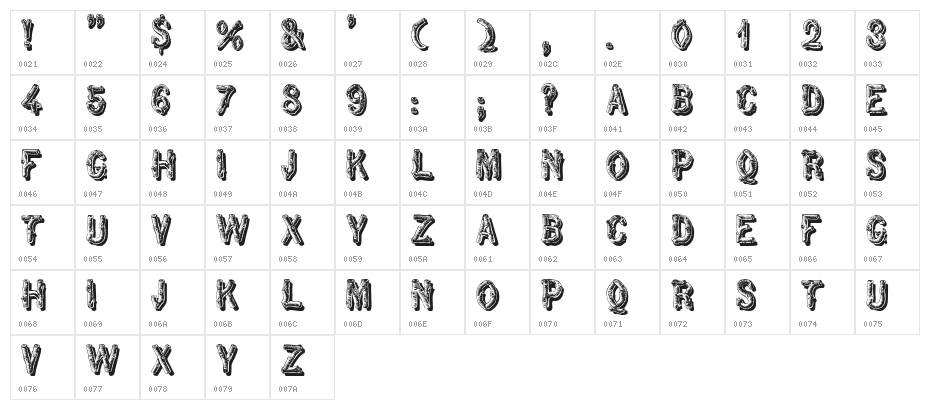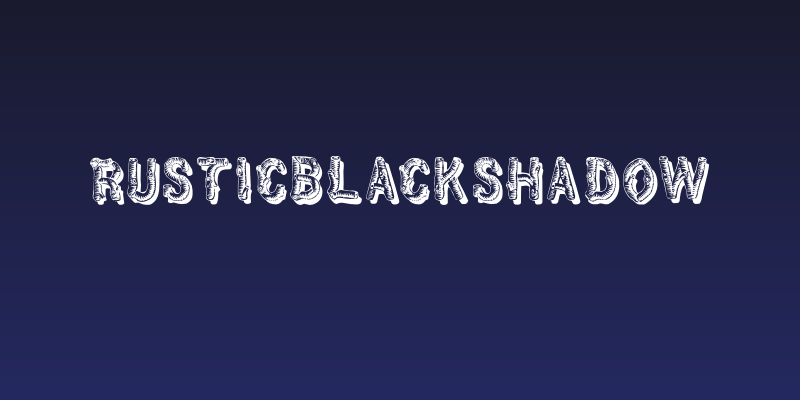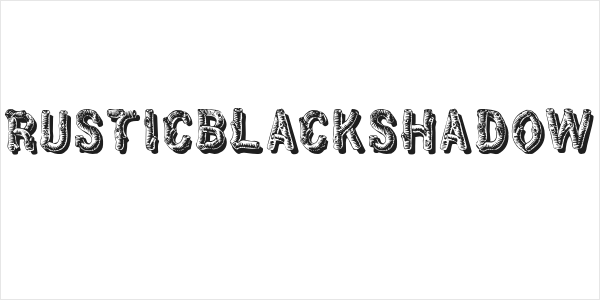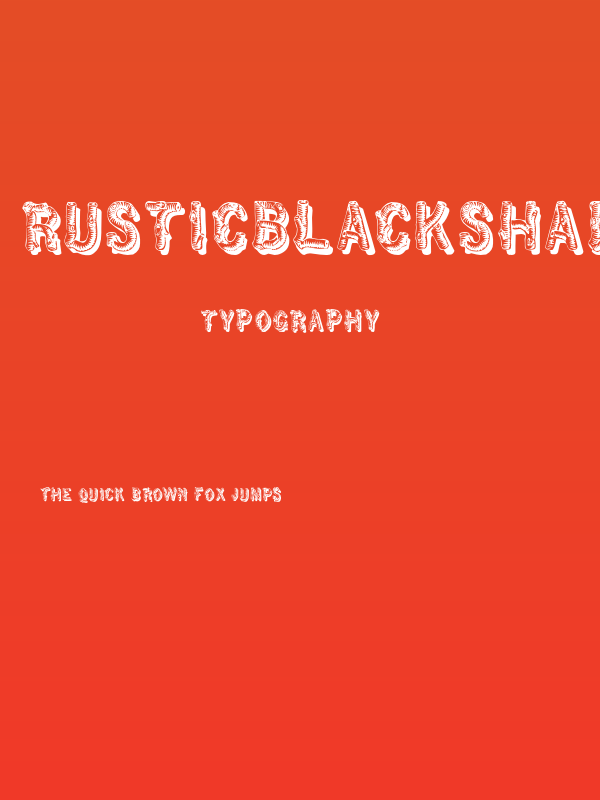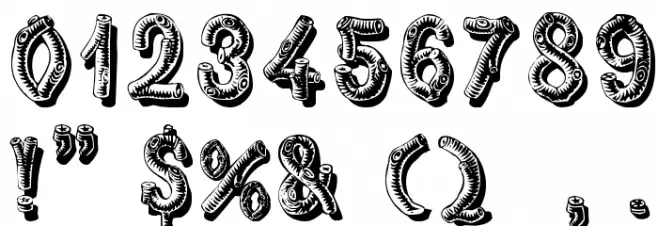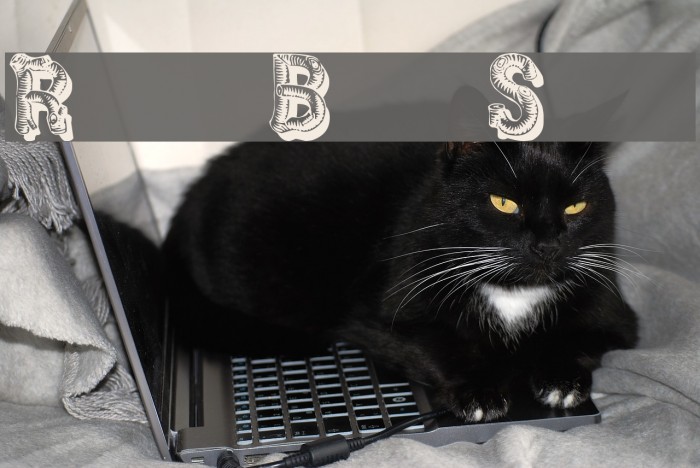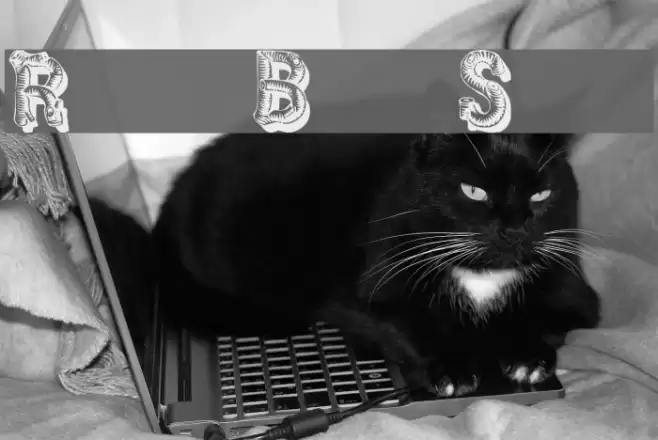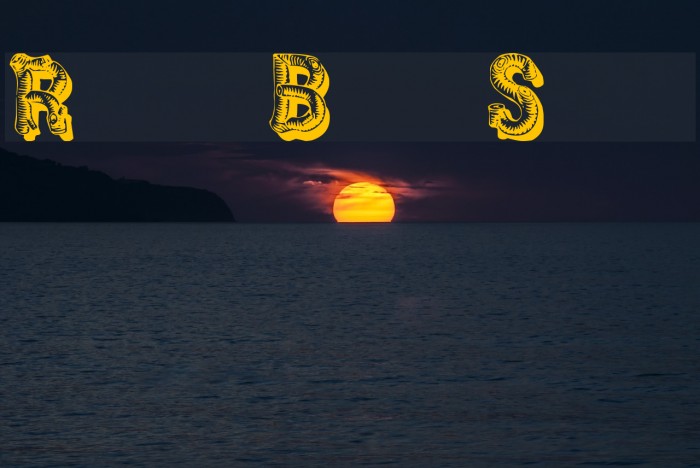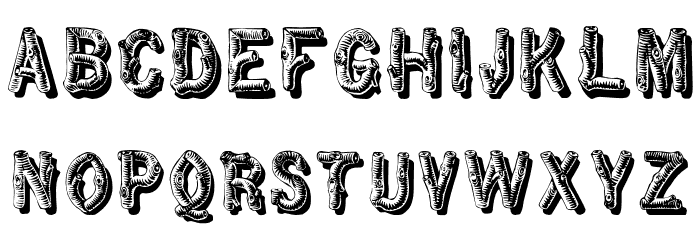
RusticBlackShadow Font
This font features a bold, decorative style with a rustic and shadowed appearance. Each character is designed with intricate detailing that gives it a textured, almost hand-carved look. The shadow effect adds depth, making the letters stand out prominently. The uppercase and lowercase letters maintain a consistent style, with the numbers and special characters following suit. This font's unique aesthetic is reminiscent of vintage signage or old western typography, making it ideal for projects that require a touch of nostalgia or a bold statement.
| Overall Style | Vintage |
| Proposed Projects | Ideal for vintage-themed designs, posters, signage, branding, and any project requiring a bold, eye-catching typeface. |